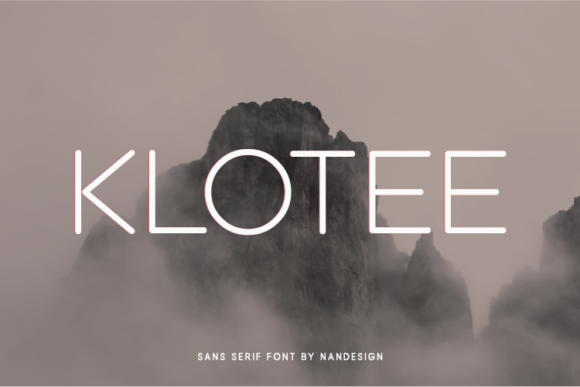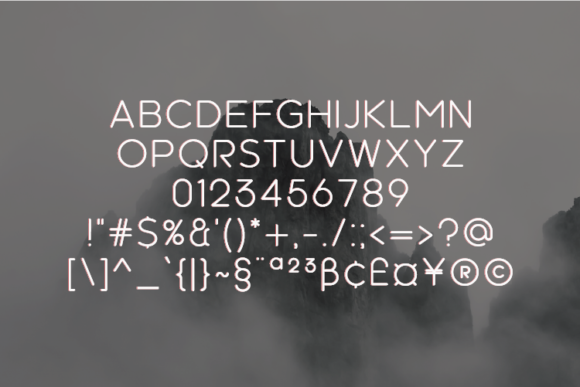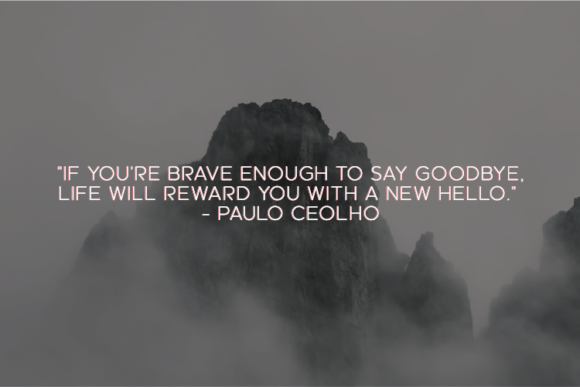
Klotee
About Klotee Font
Klotee is a unique sans serif font. It will look great in your designs. Use it to create beautiful headings, gorgeous invitations, stunning logos, and so much more!